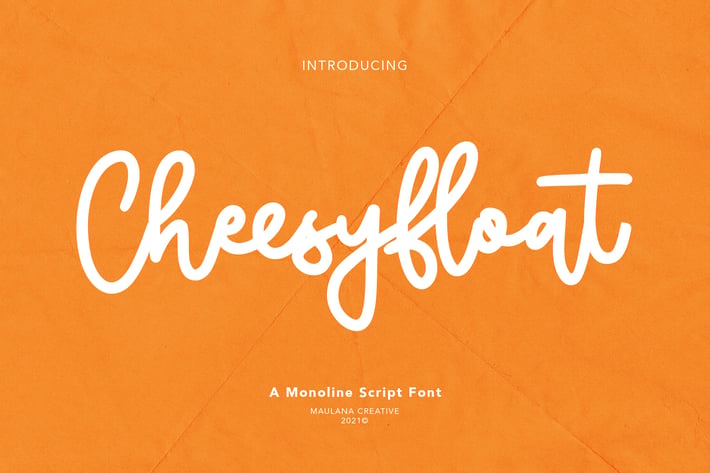
Cheesyfloat Monoline Script Font
Cheesyfloat is casual script font, with clean bold mono-line stroke, upright and fun character. It has Opentype features ligatures of character, To give you an extra creative work. Cheesyfloat script font support multilingual more than 100+ language. This font is good for logo design, Social media, Movie Titles, Books Titles, a short text even a long text letter and good for your secondary text font with sans or serif. Make a stunning work with Cheesyfloat font.